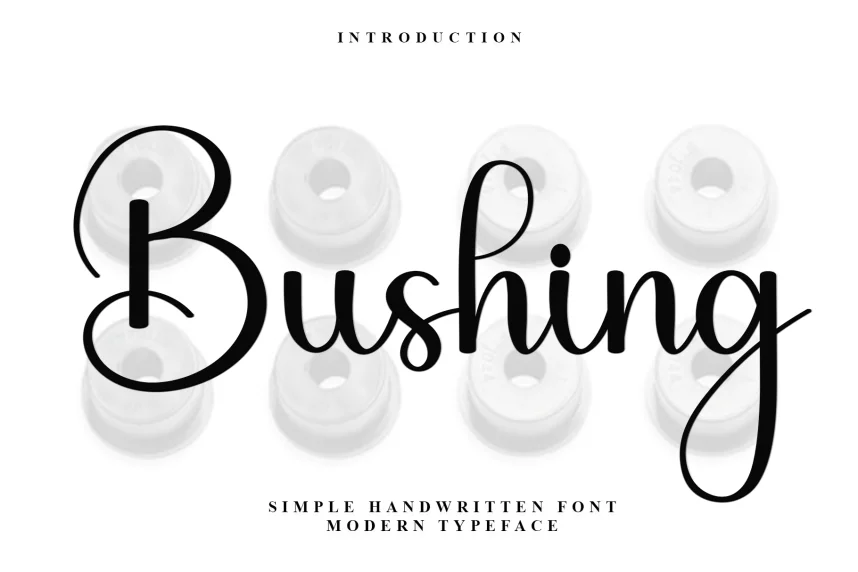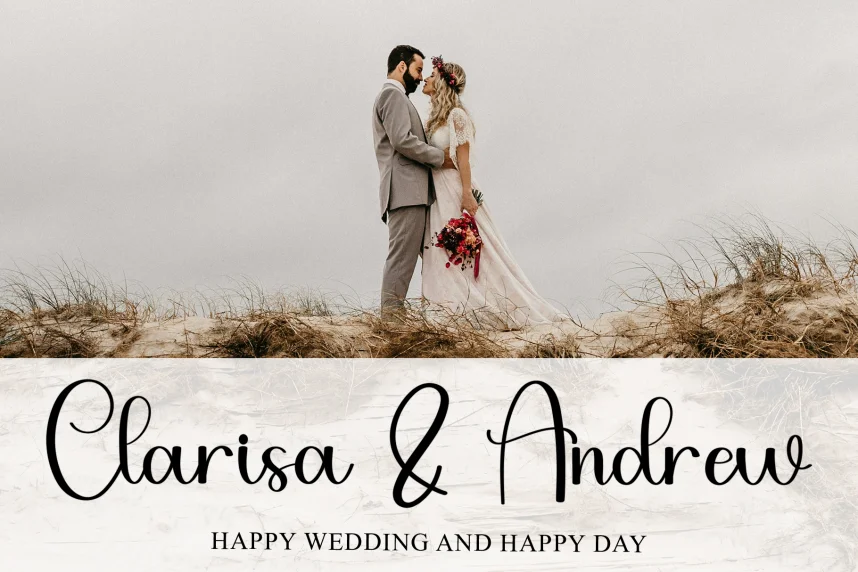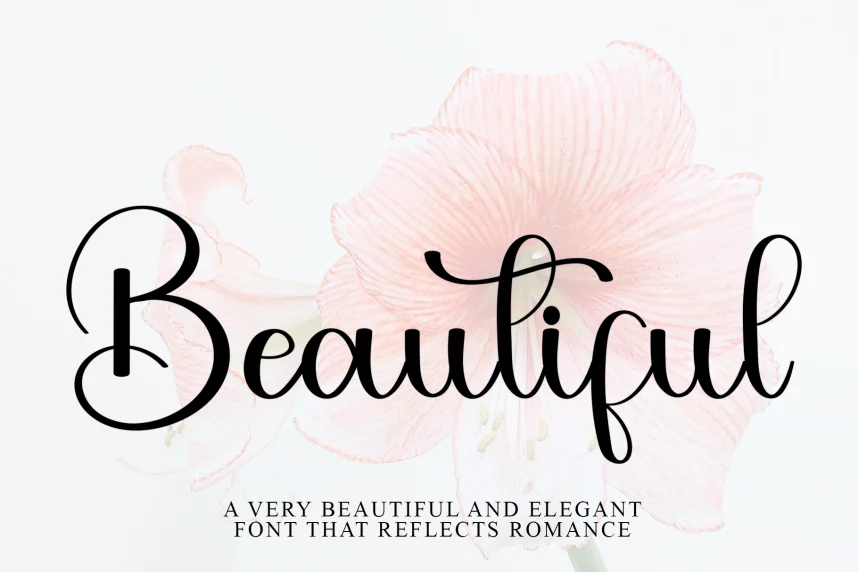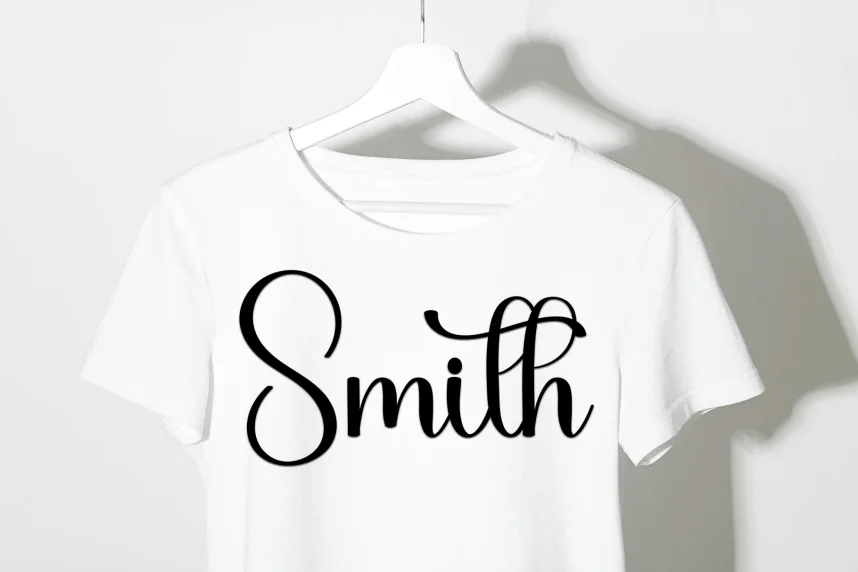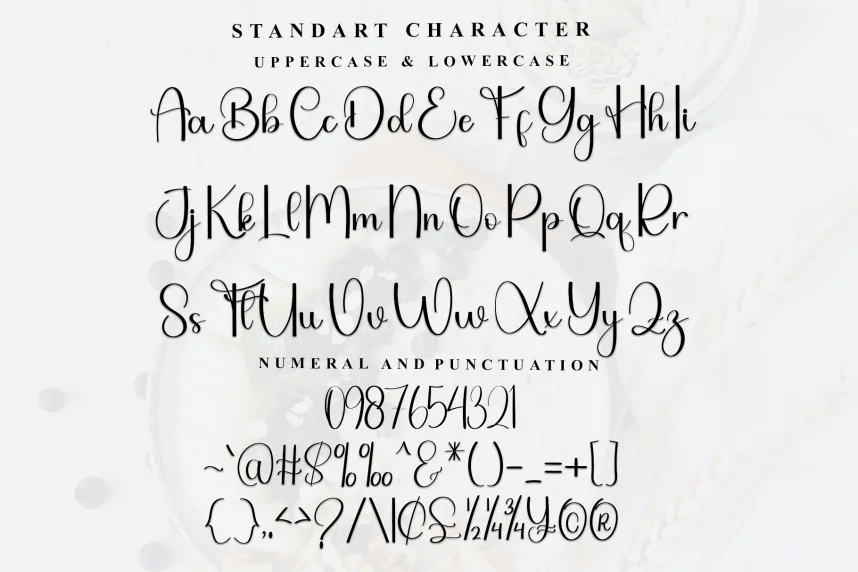
Bushing Simple Handwritten Font solves a common design problem: creating a handwritten look that remains legible in both small and large sizes. This font provides a personal touch without sacrificing clarity.
Bushing Simple is a handwritten script font featuring smooth, casual strokes with gentle curves. Its simplicity adds character without overwhelming the design, making it suitable for both formal and informal applications.